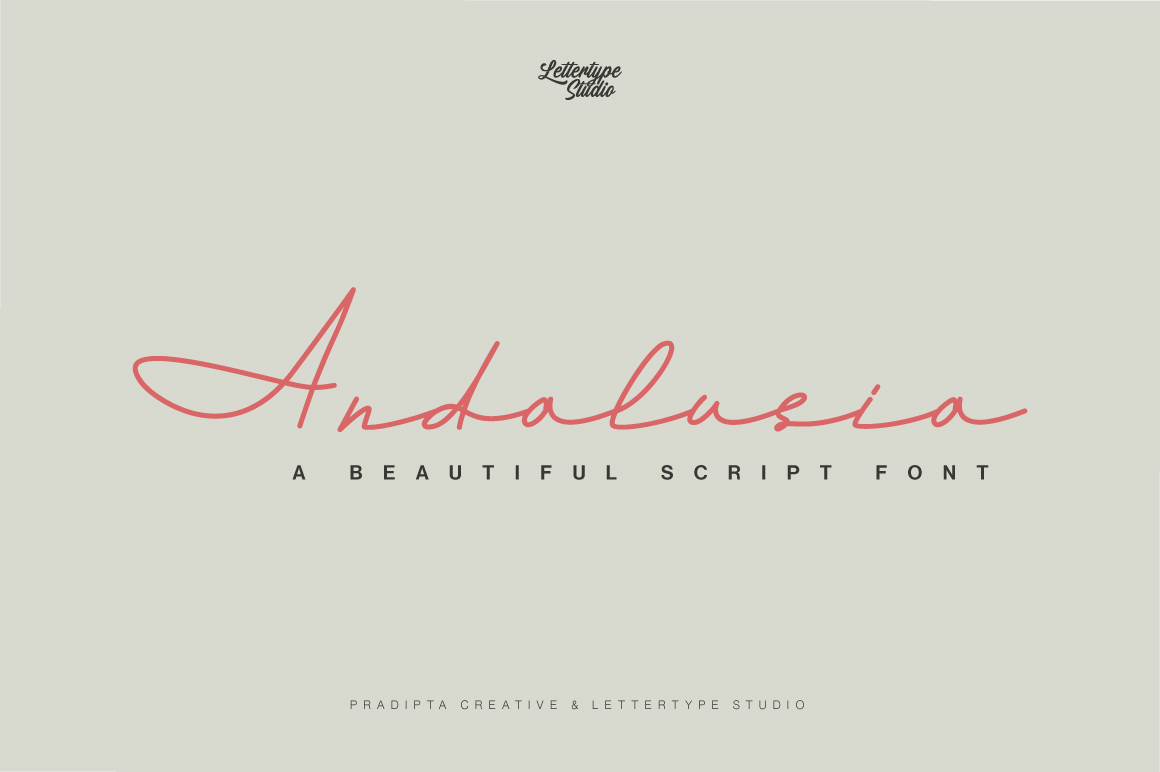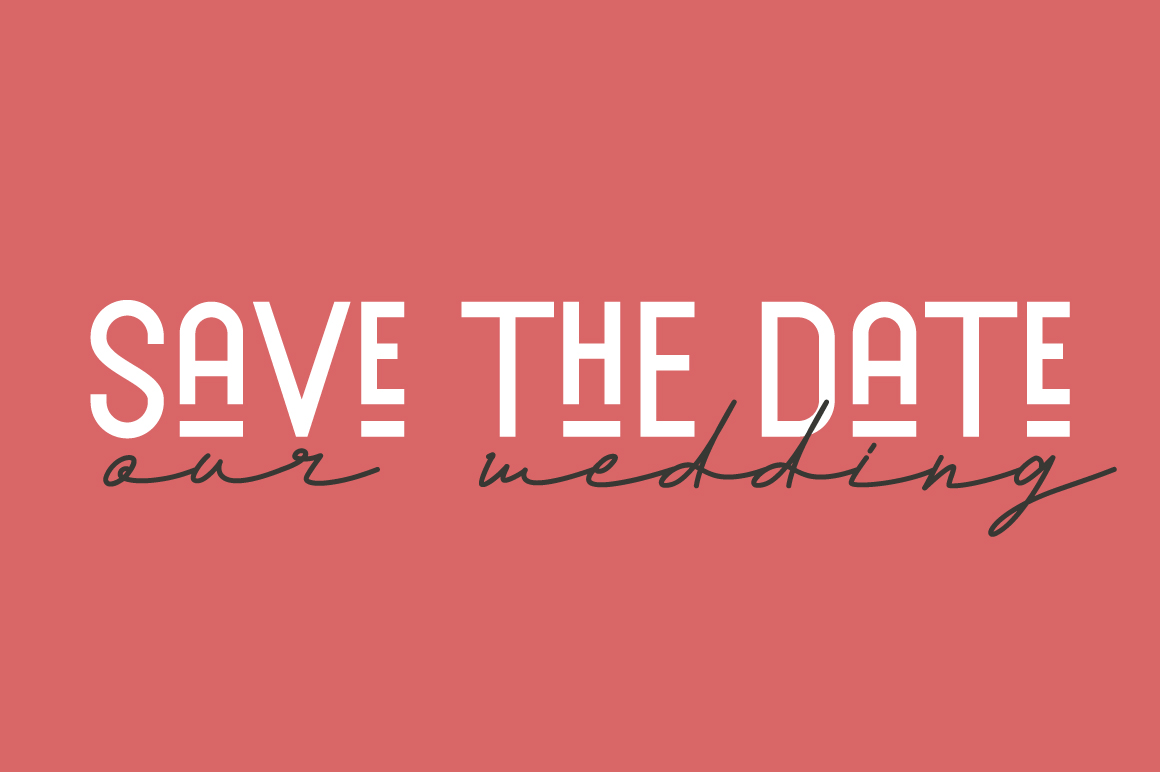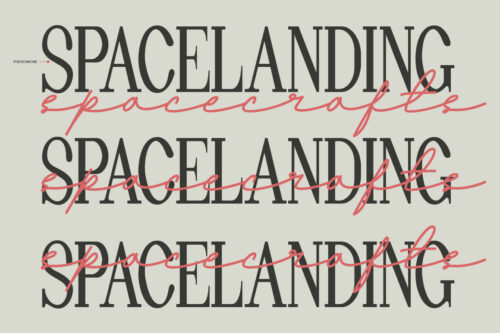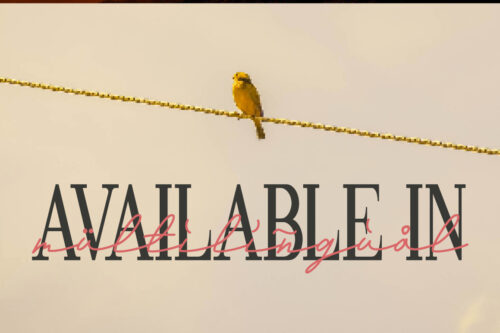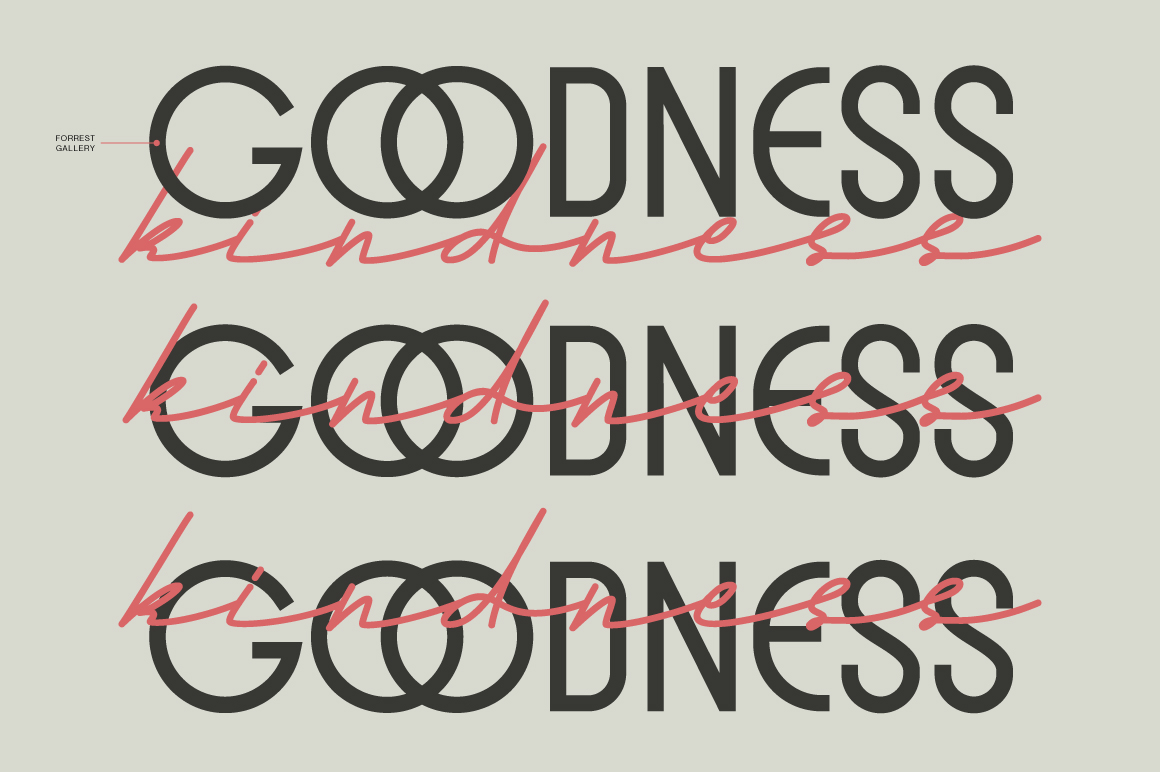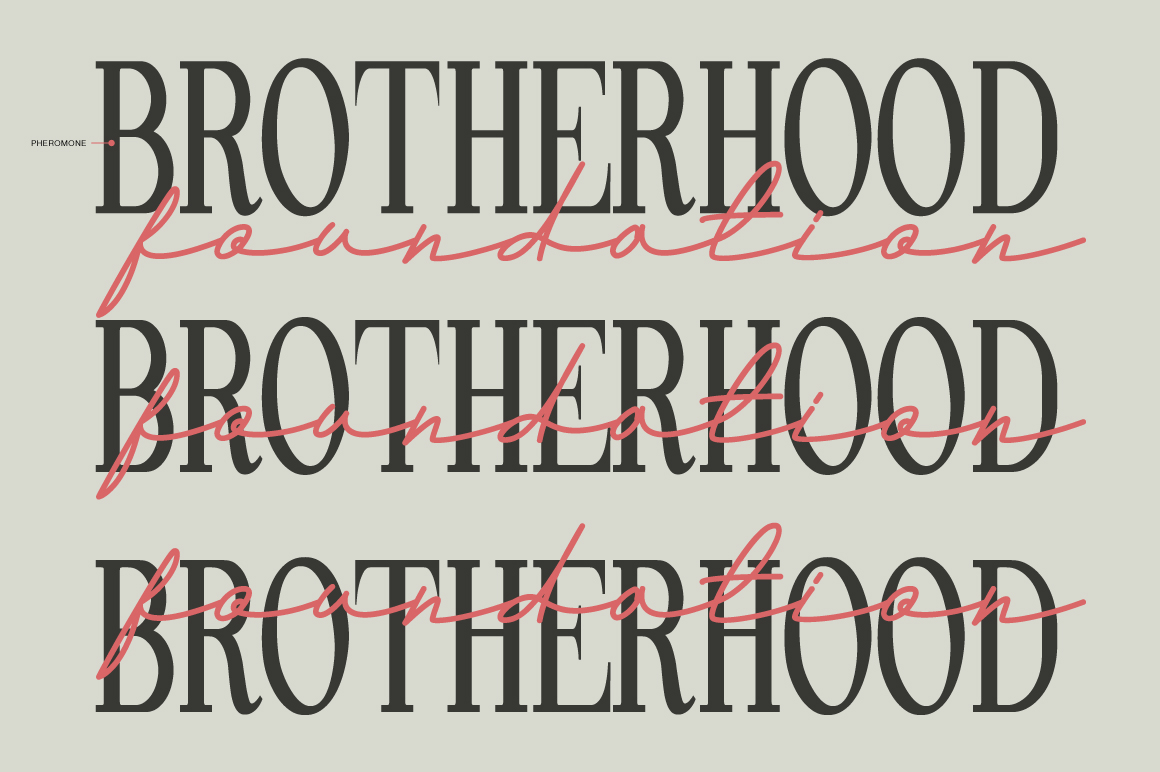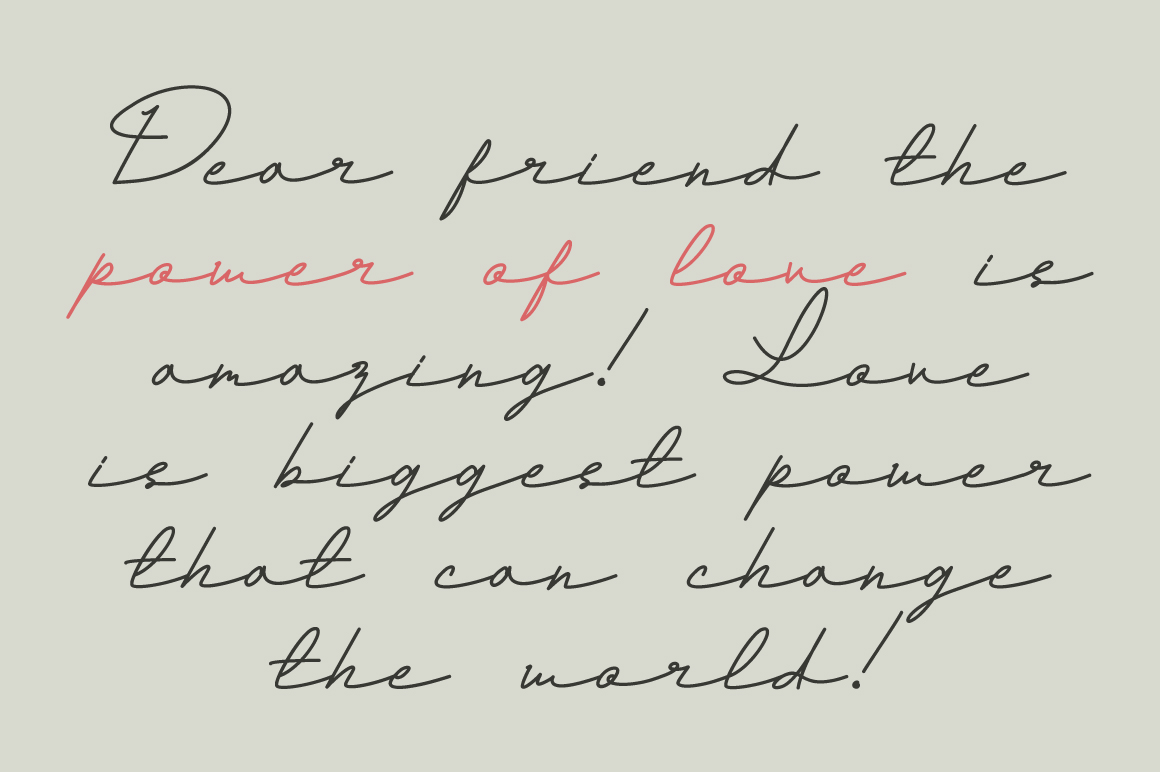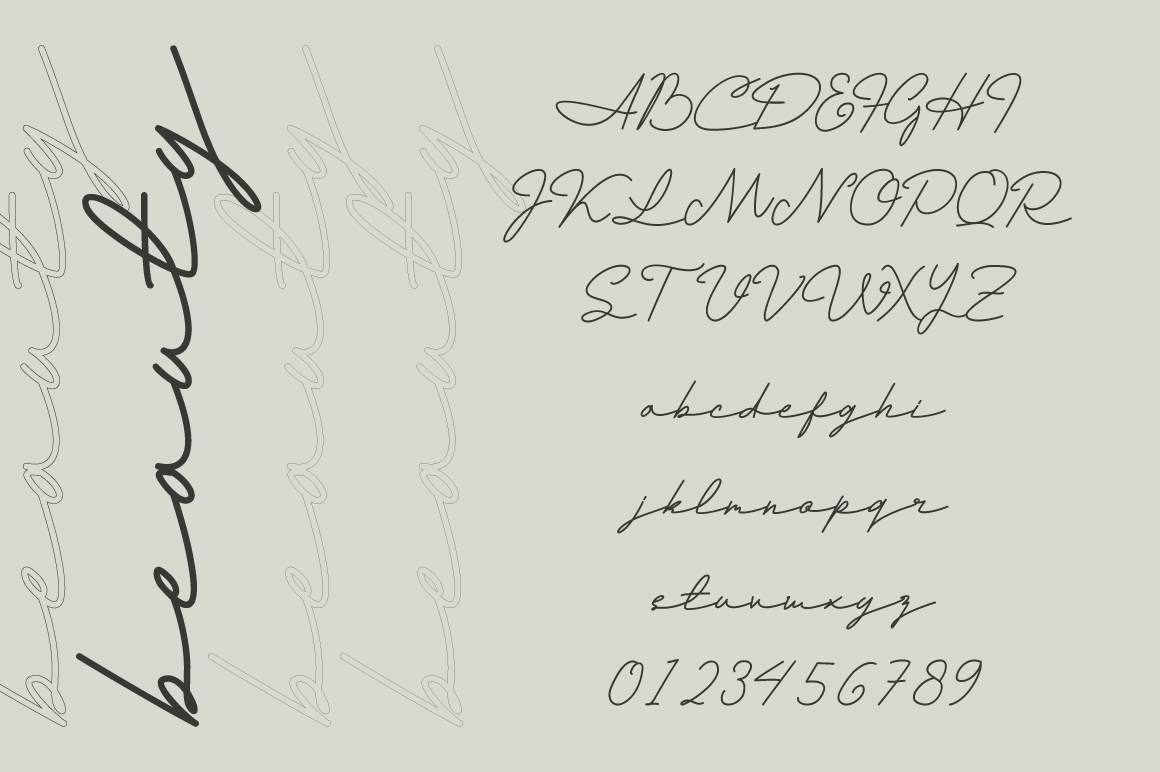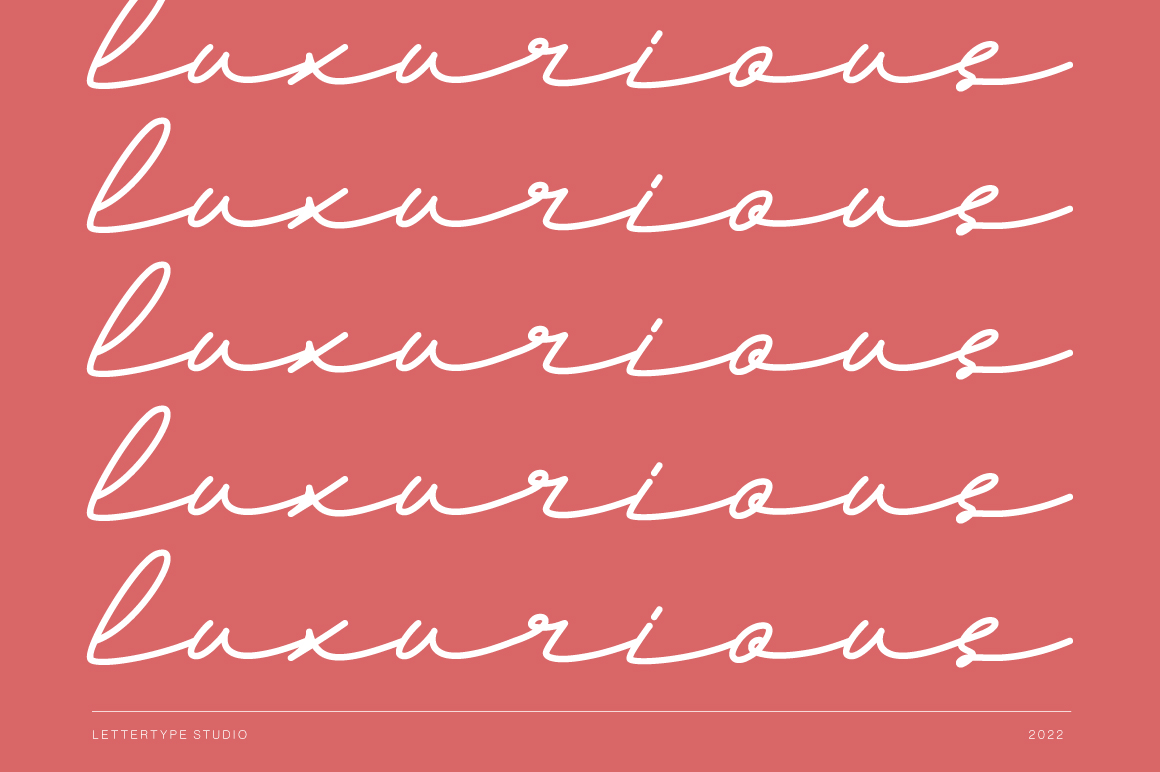
Andalusia - Regular
Andalusia - SemiBold
Andalusia - Bold
Introducing our new modern handwriting script font Andalusia. Andalusia is a beautiful monoline, natural, and stylish style.
Andalusia script consists of a fashionable sophisticated signature-style script with its own unique curves and an elegant inky flow.
Andalusia script is perfect for photography, watermark, social media posts, advertisements, logos & branding, invitation, product designs, label, stationery, wedding designs, product packaging, subheader or header, special events, or anything that need handwriting taste.
• Lowercase, Uppercase, and Ligatures
• Numerals & Punctuation
• Accented Characters
• Andalusia Font Family (Regular & SemiBold)
• Multiple Languages Supported